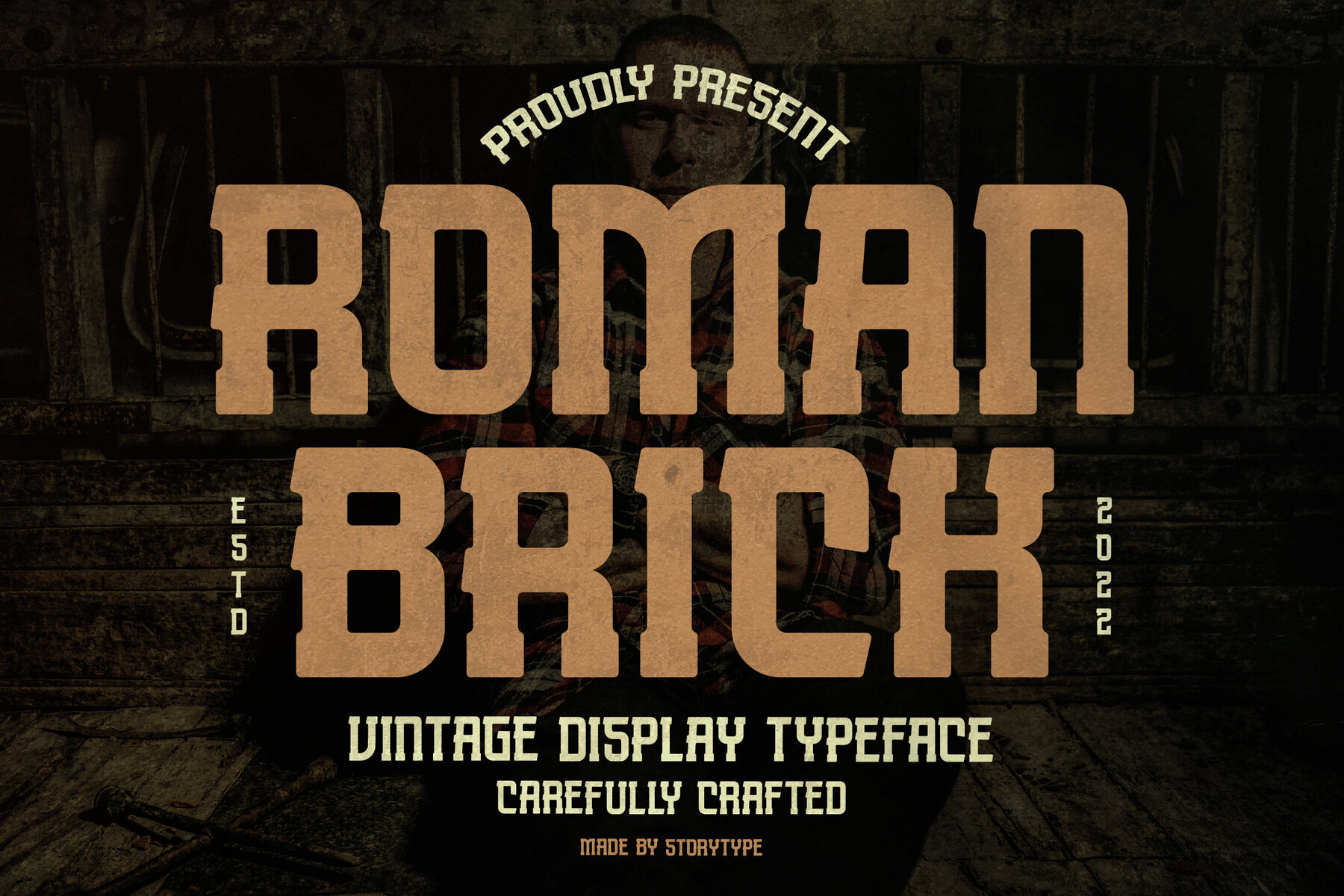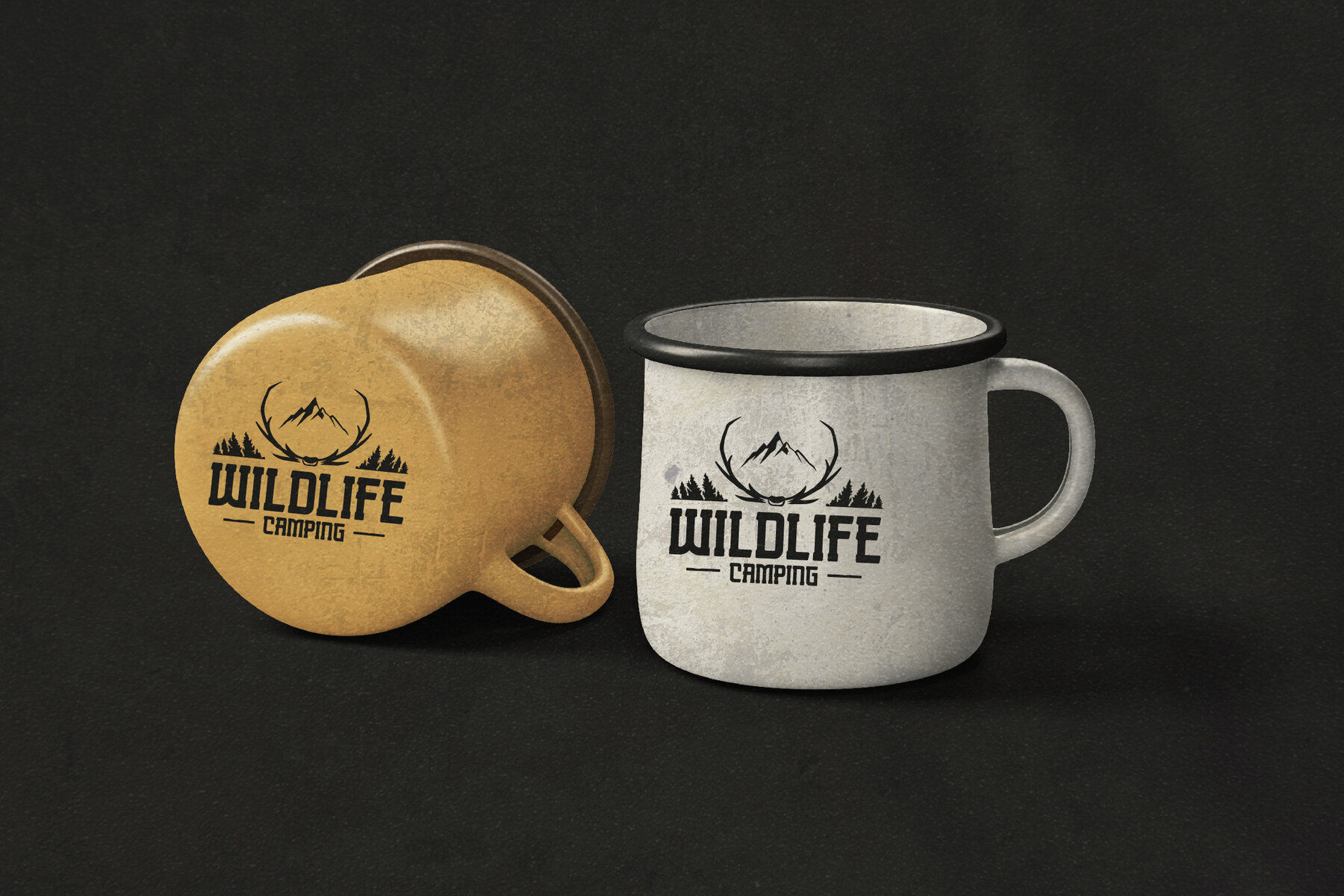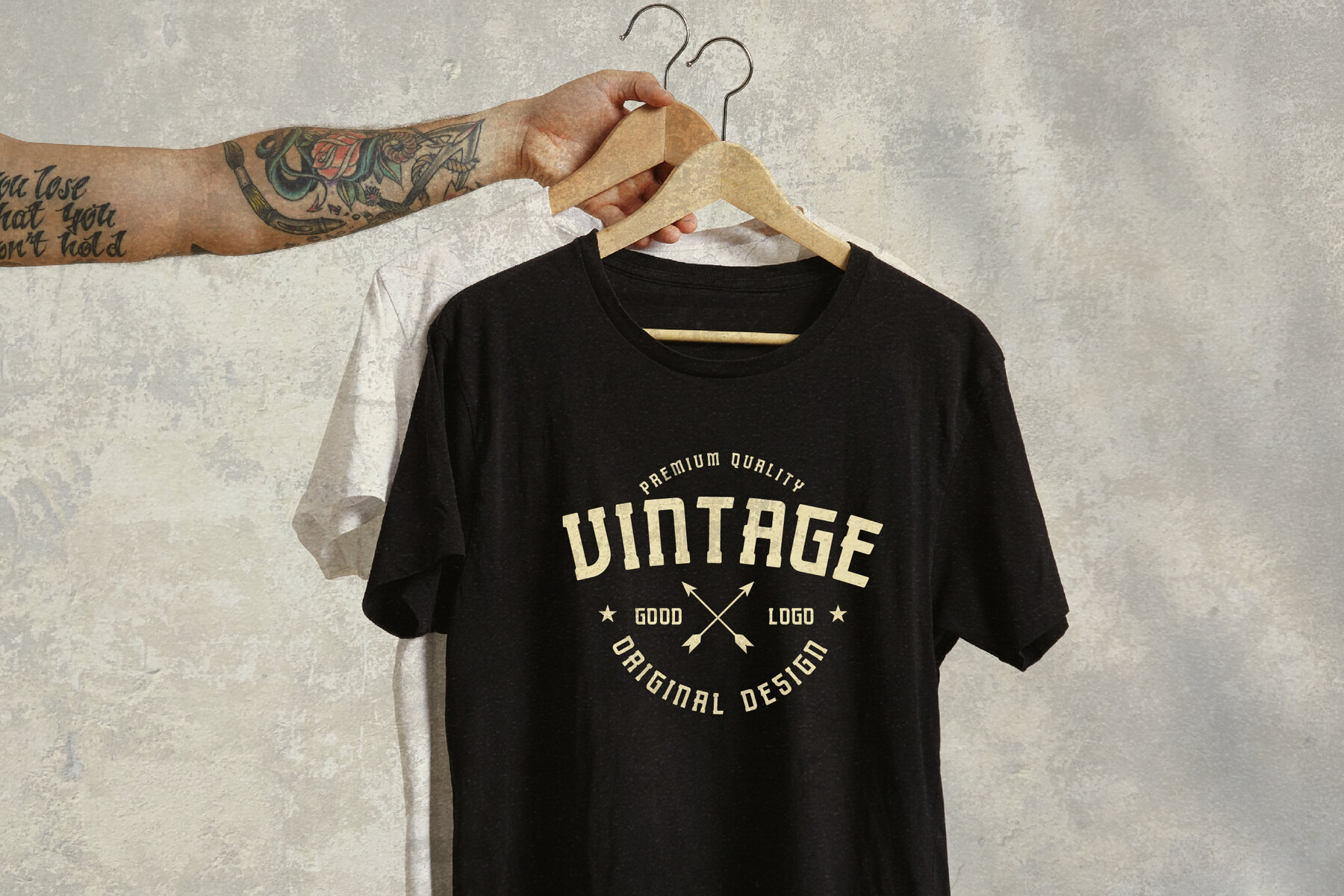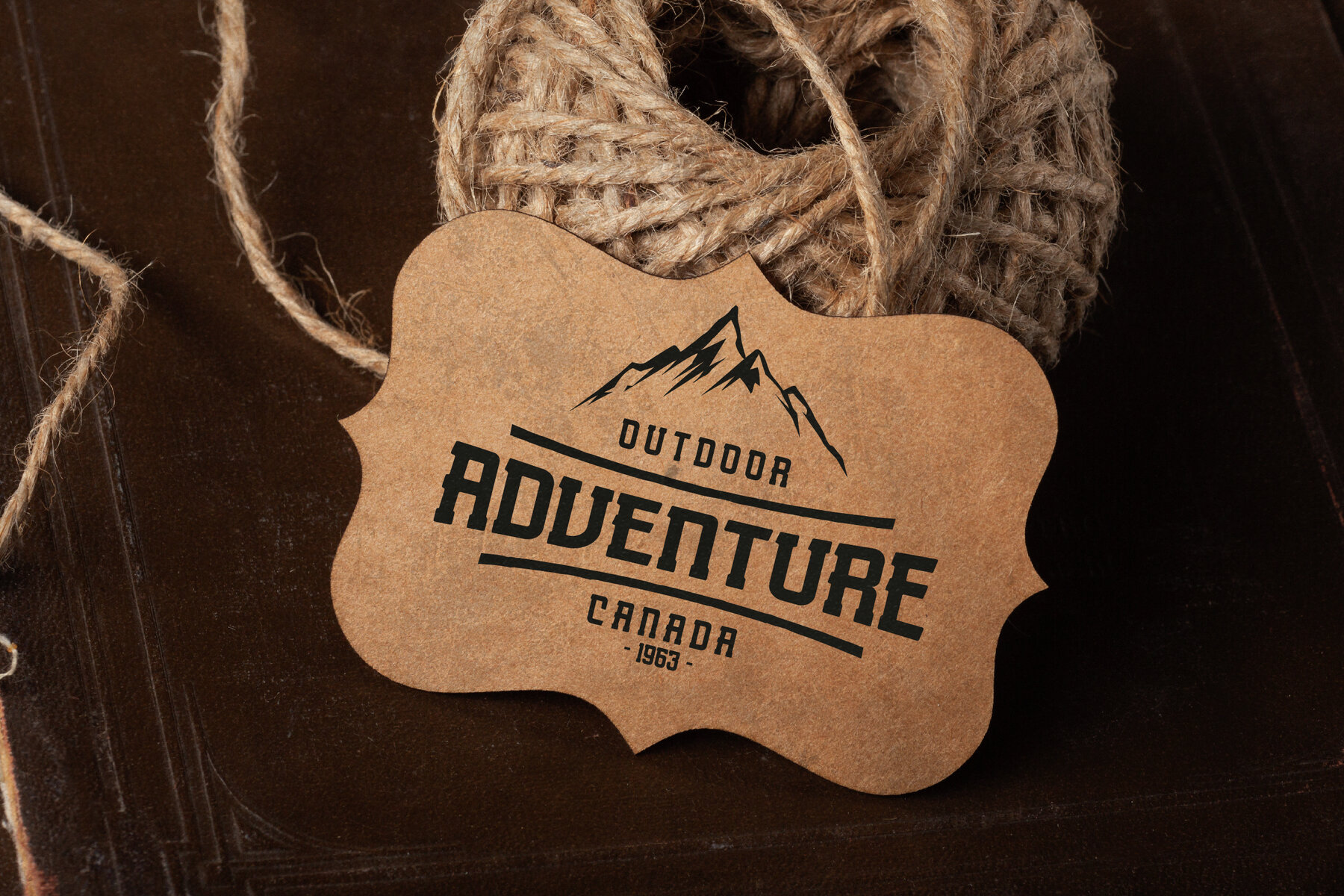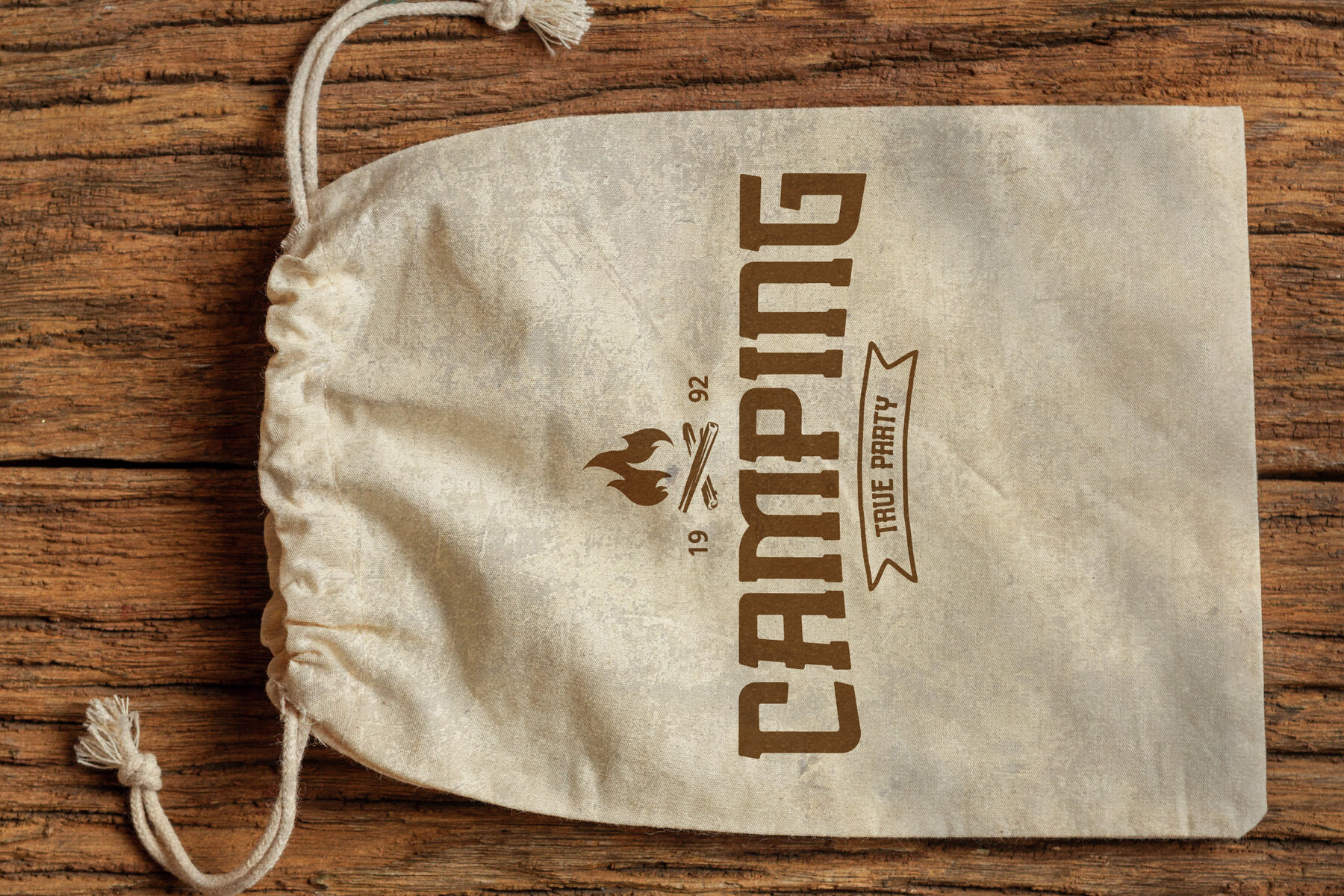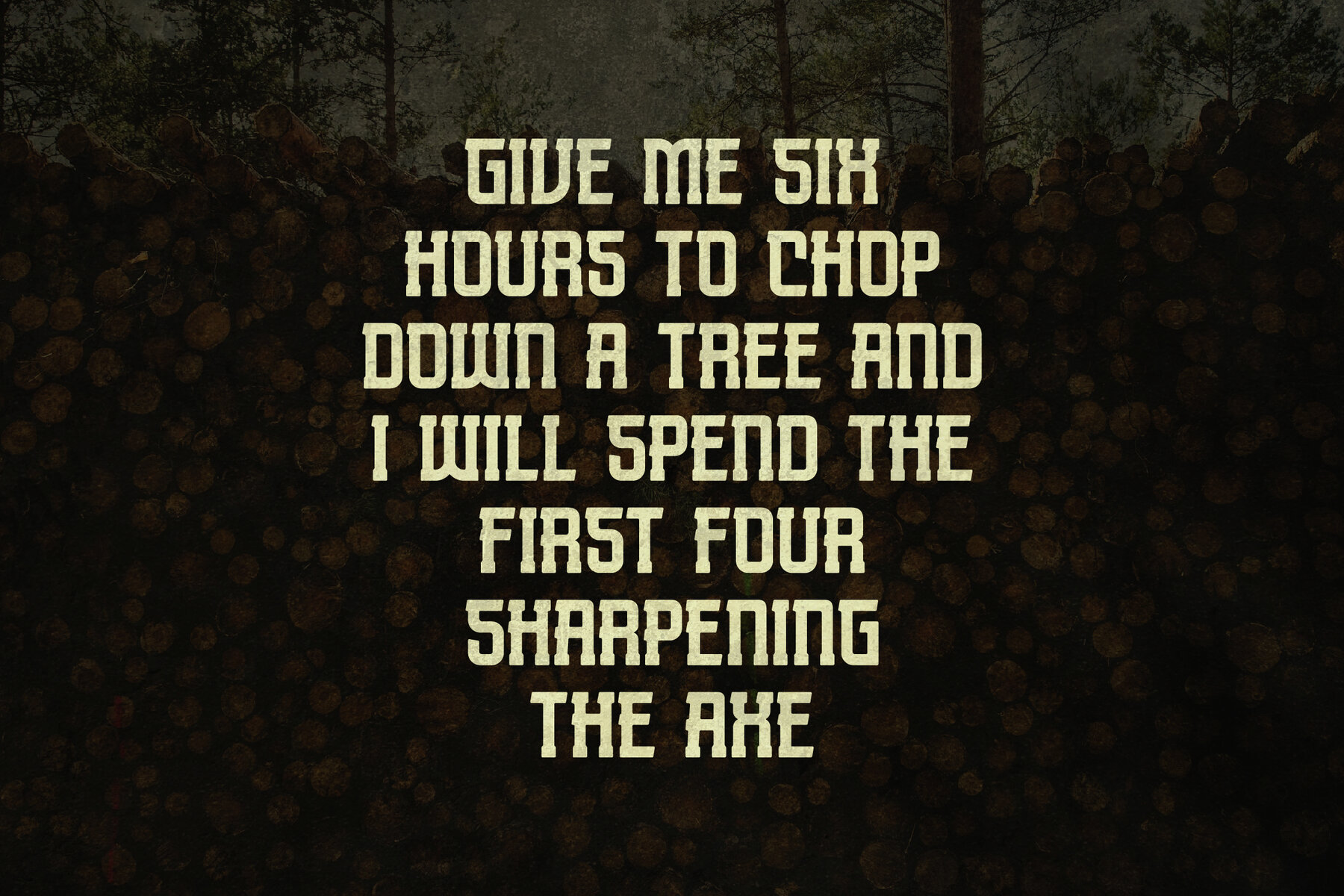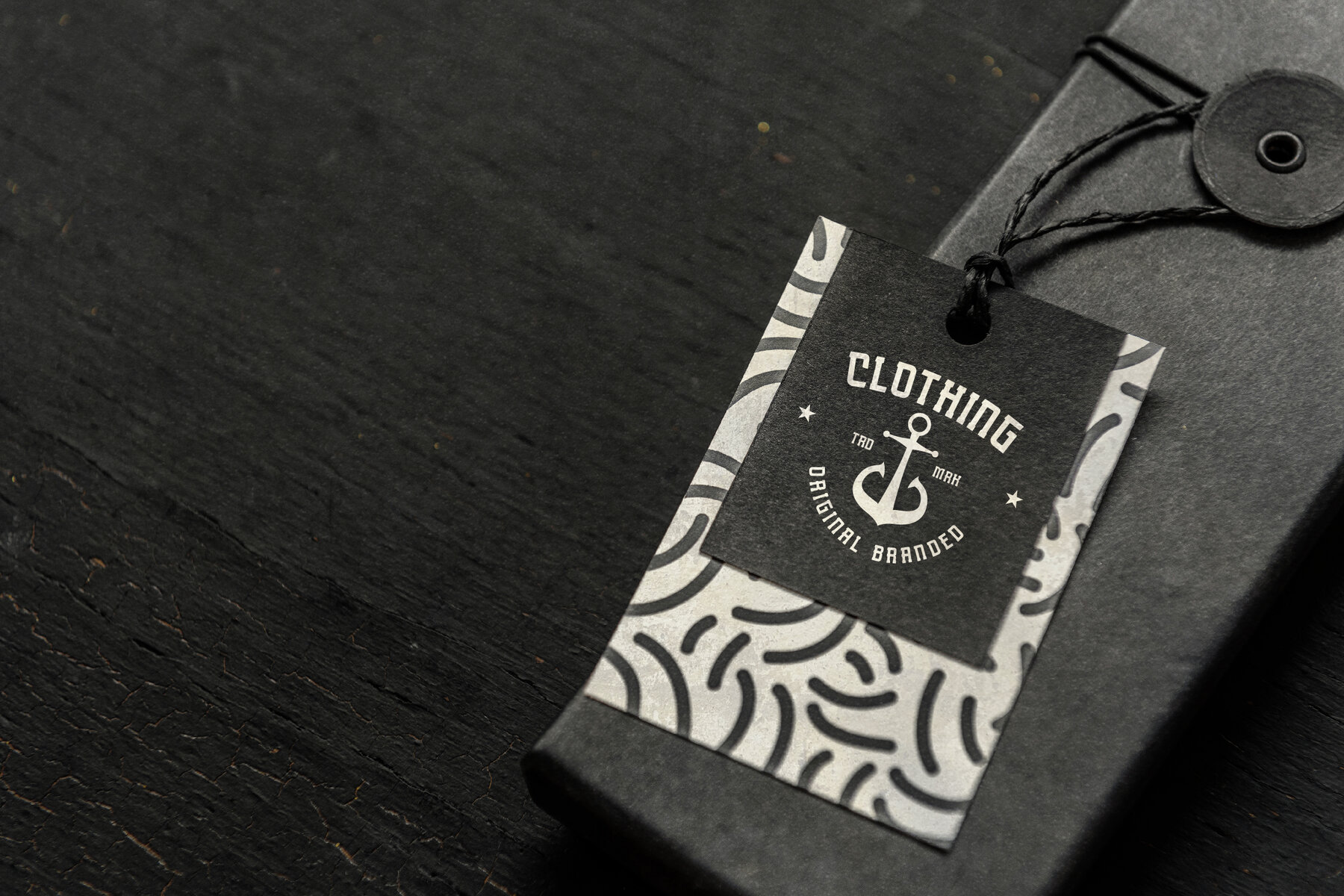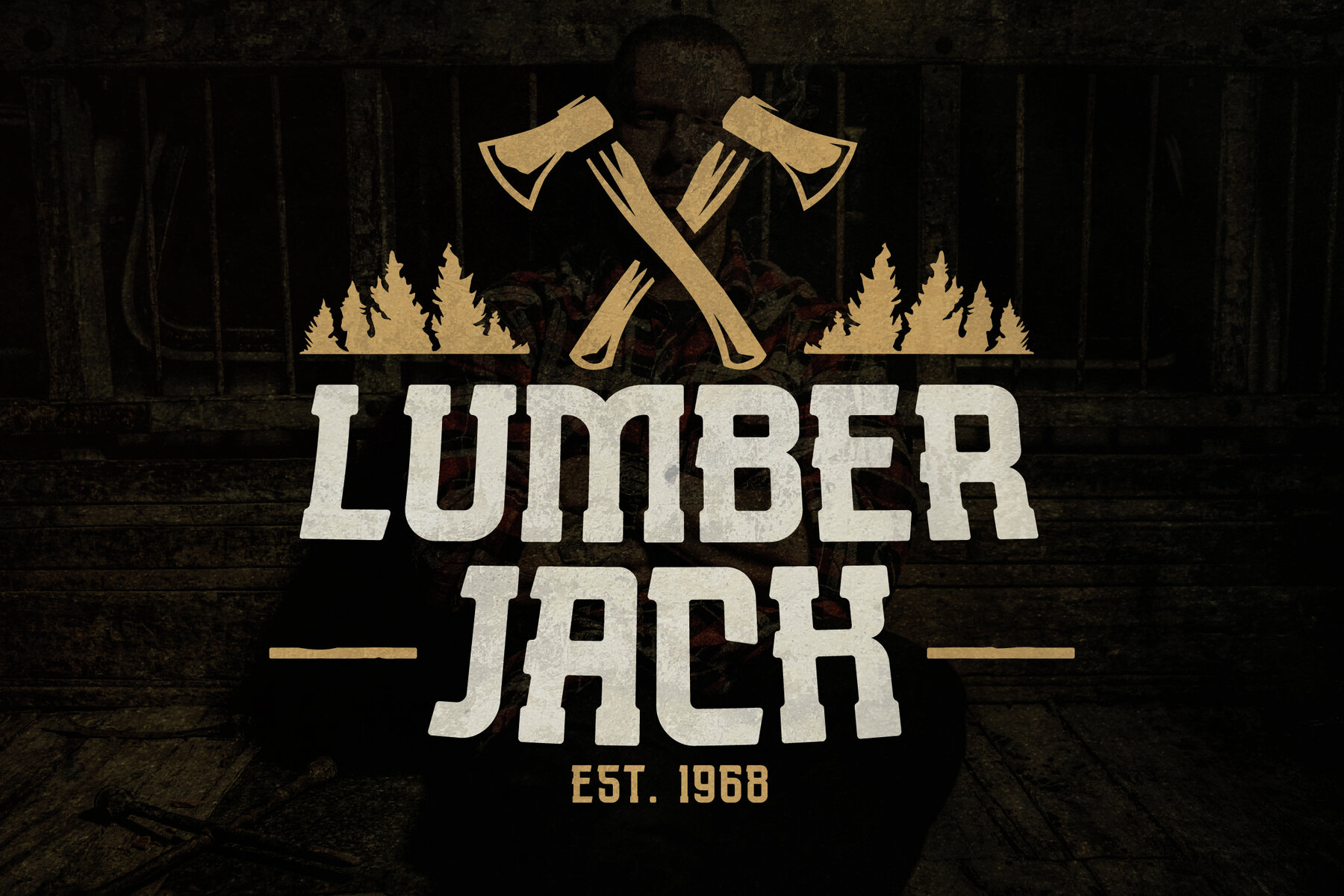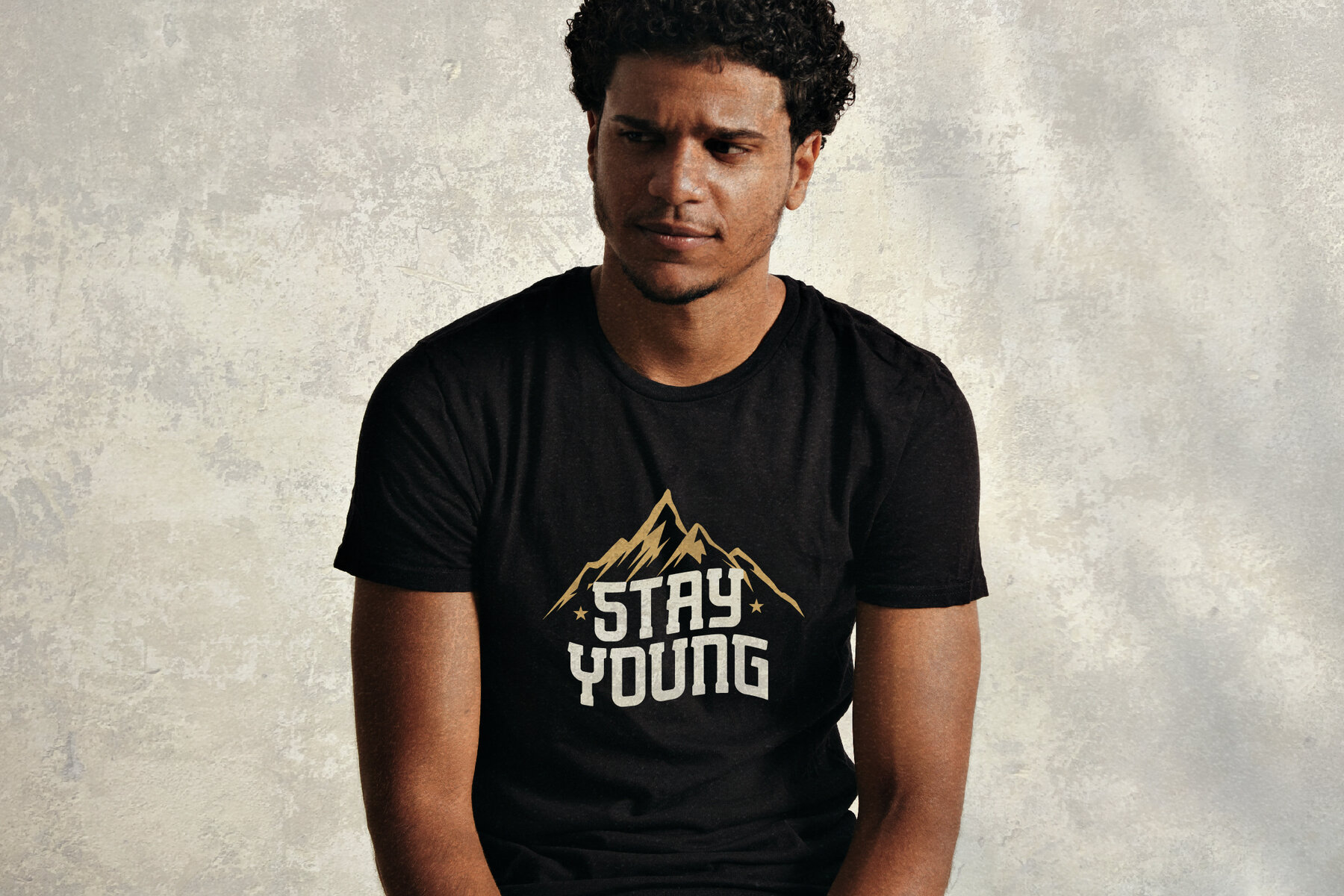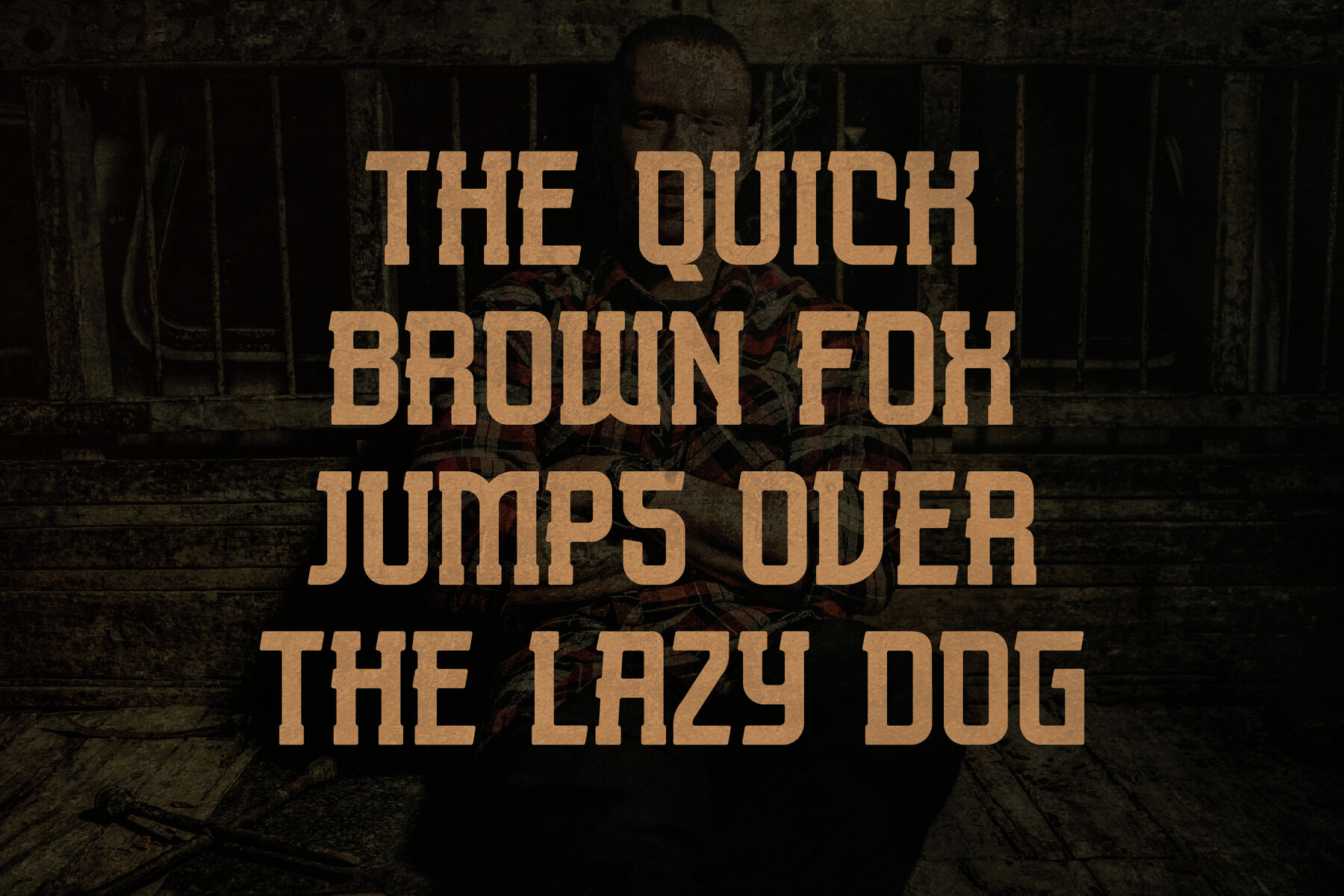
Roman Brick Font
Introducing Roman Brick Typeface, a masterpiece by Storytype Studio. This serif typeface combines modern aesthetics with classic elegance, delivering a distinctive style ideal for high-end design projects. From luxury logos and fashion branding to book and movie titles, Roman Brick elevates your design with a refined touch. Embrace the unique sophistication of Roman Brick Typeface for your next creative venture, adding a layer of luxury to any project.Roman Brick Typeface: A Modern Classic